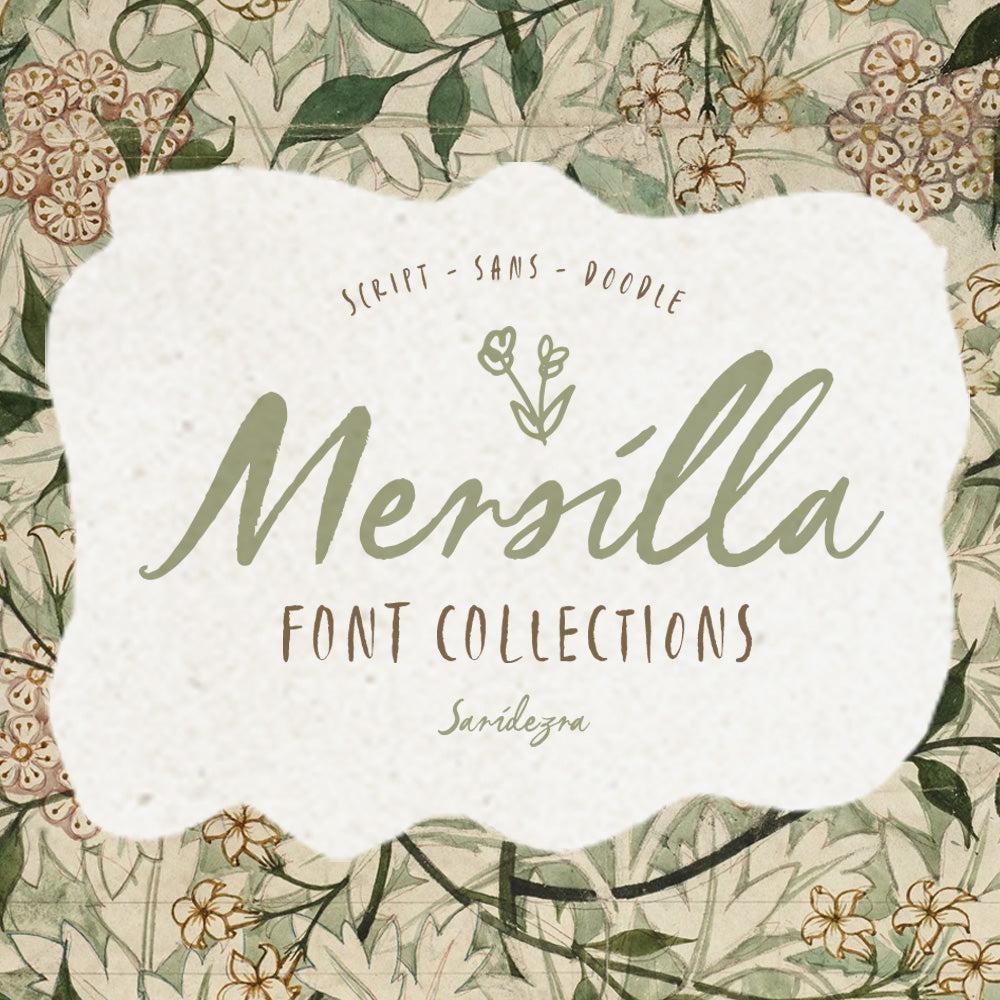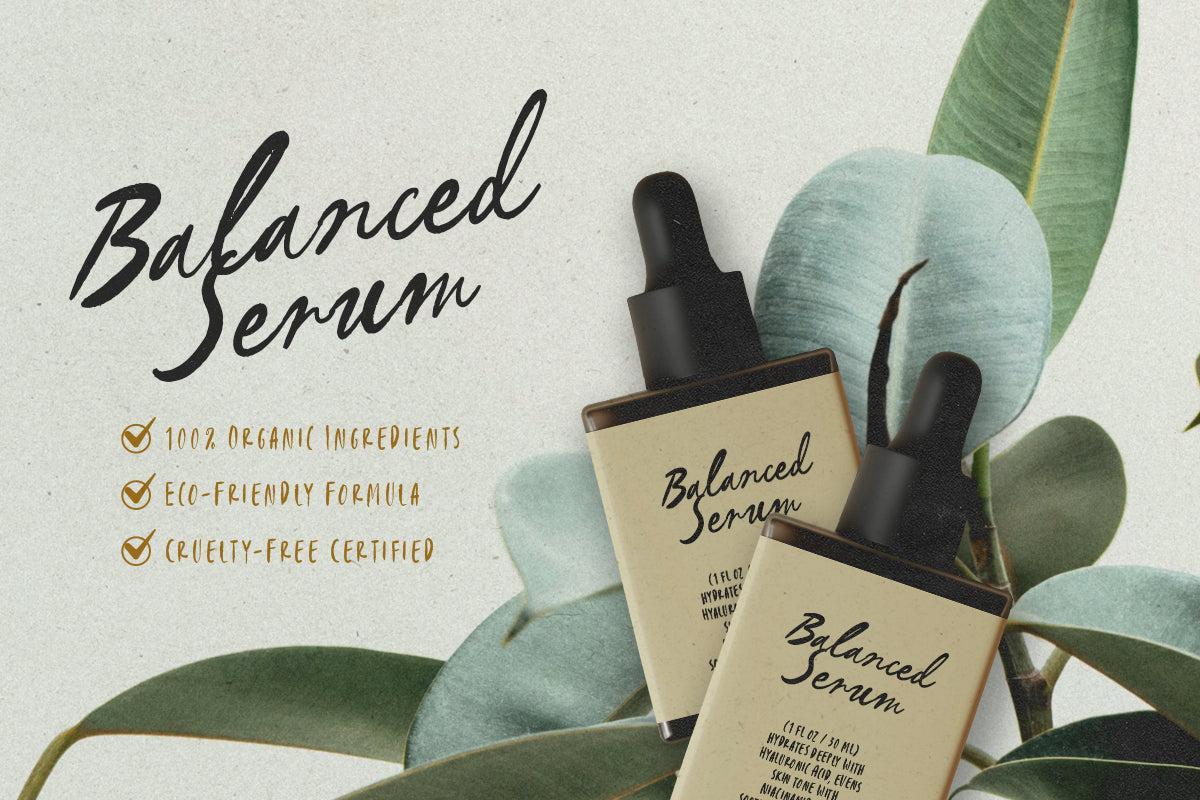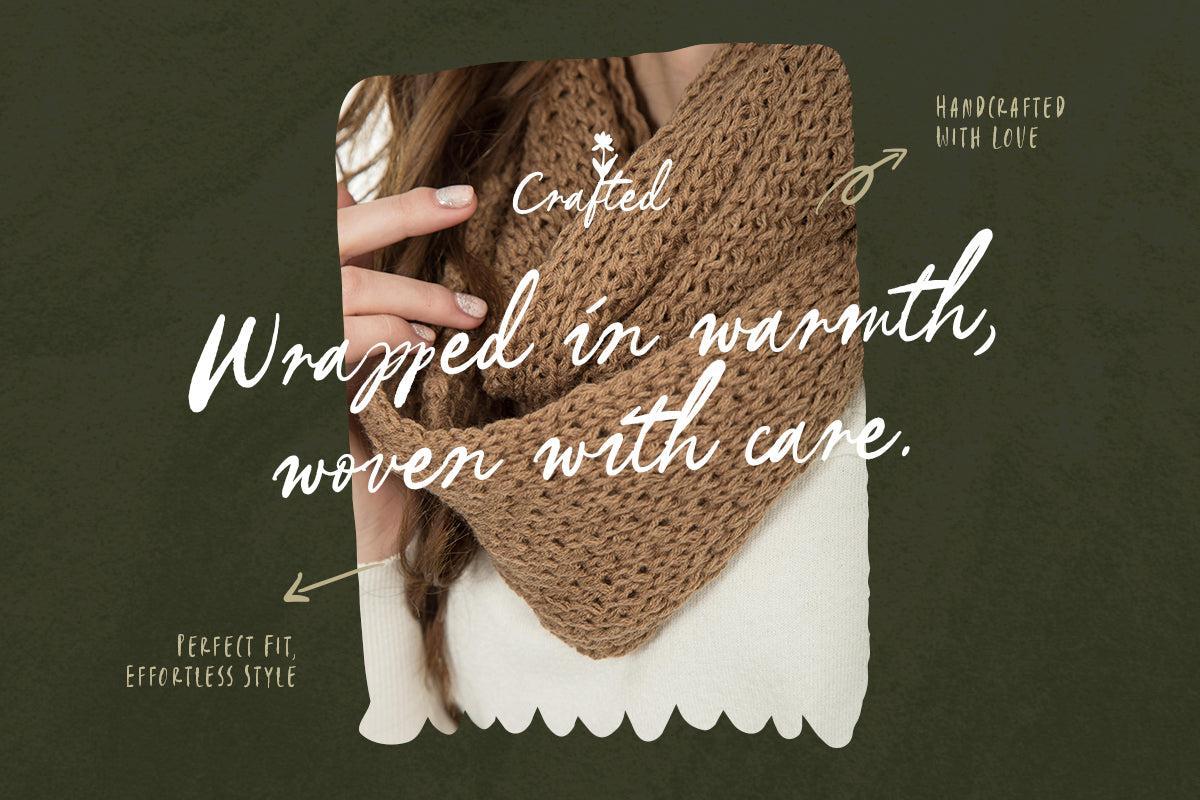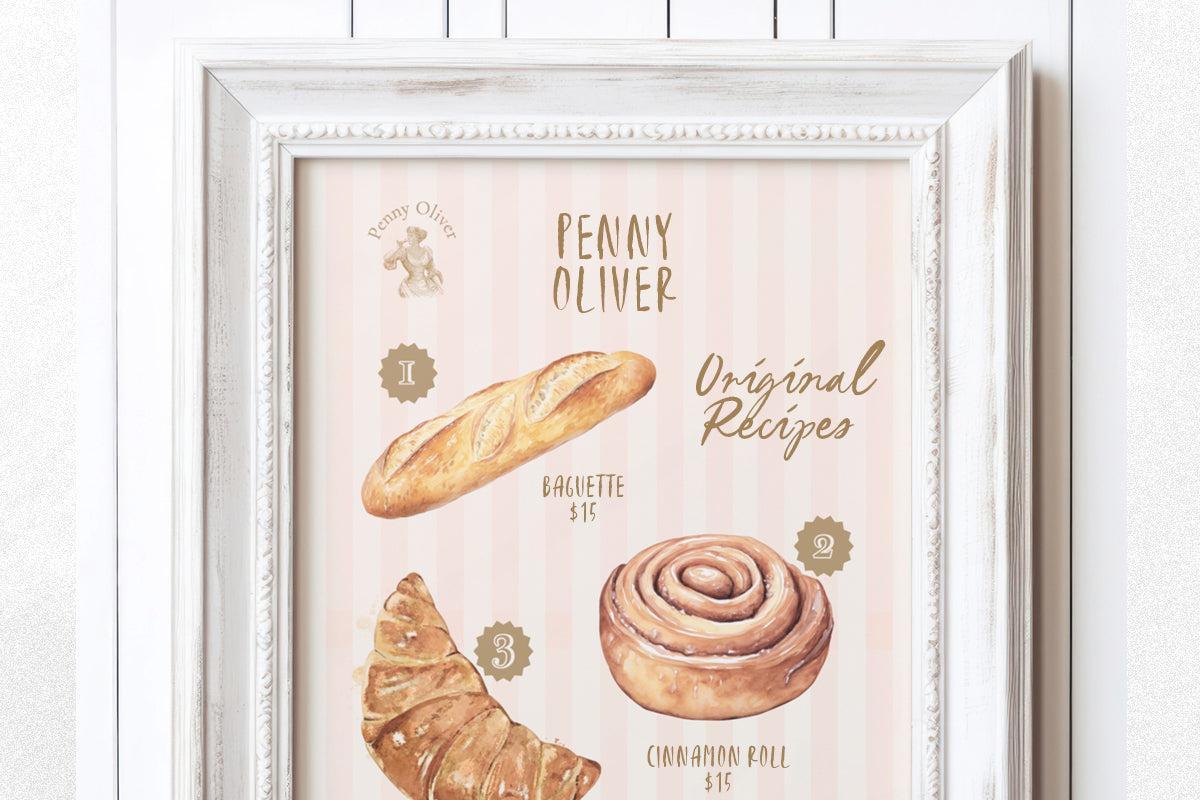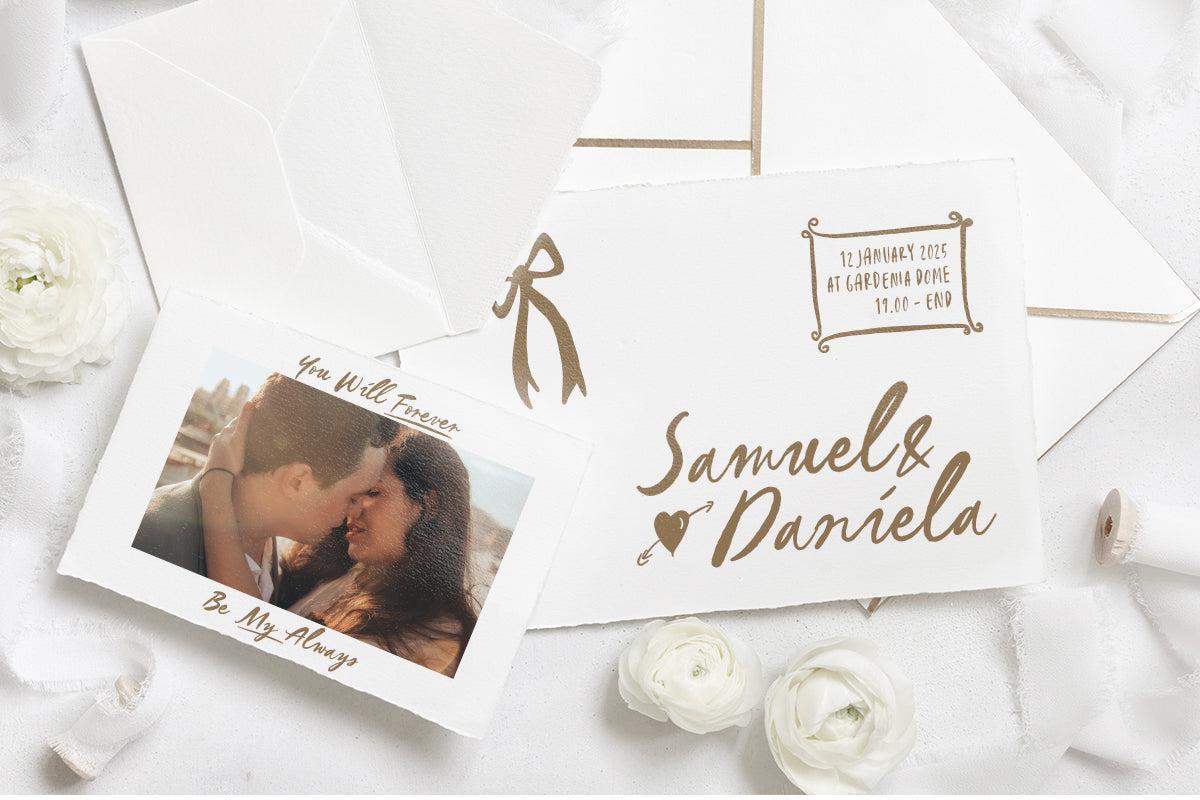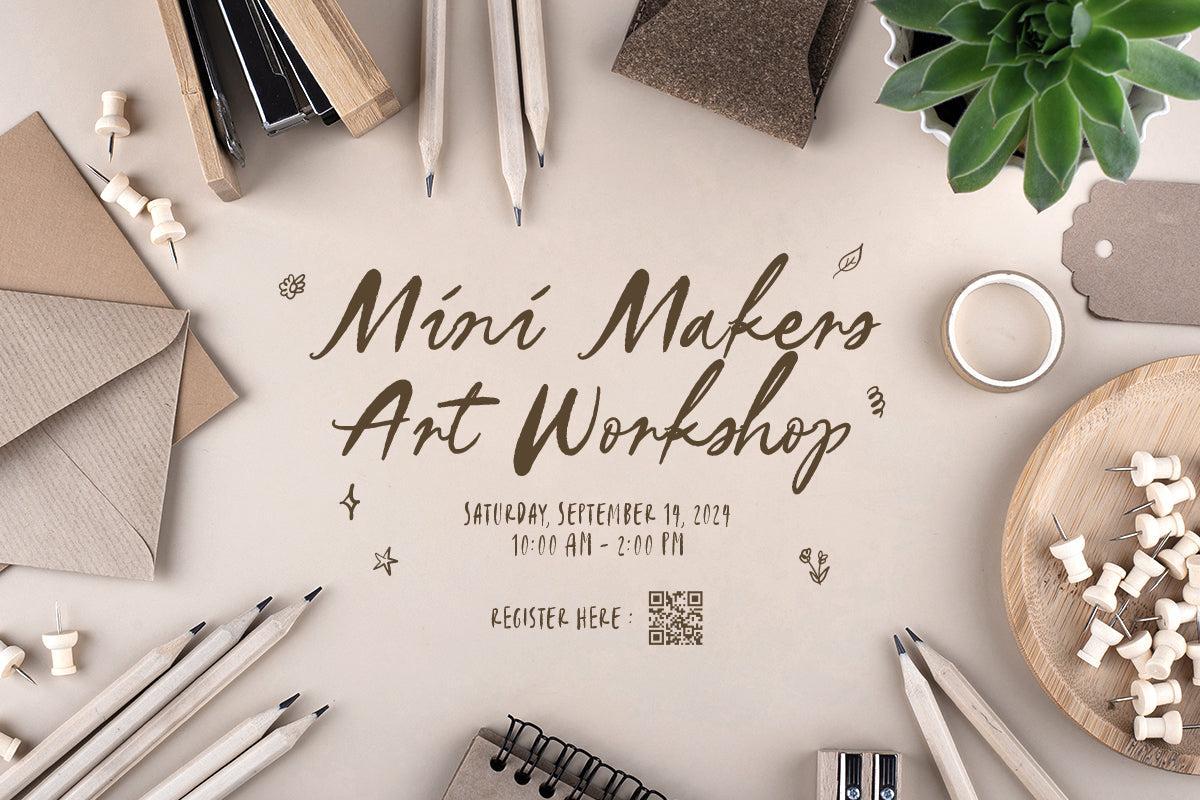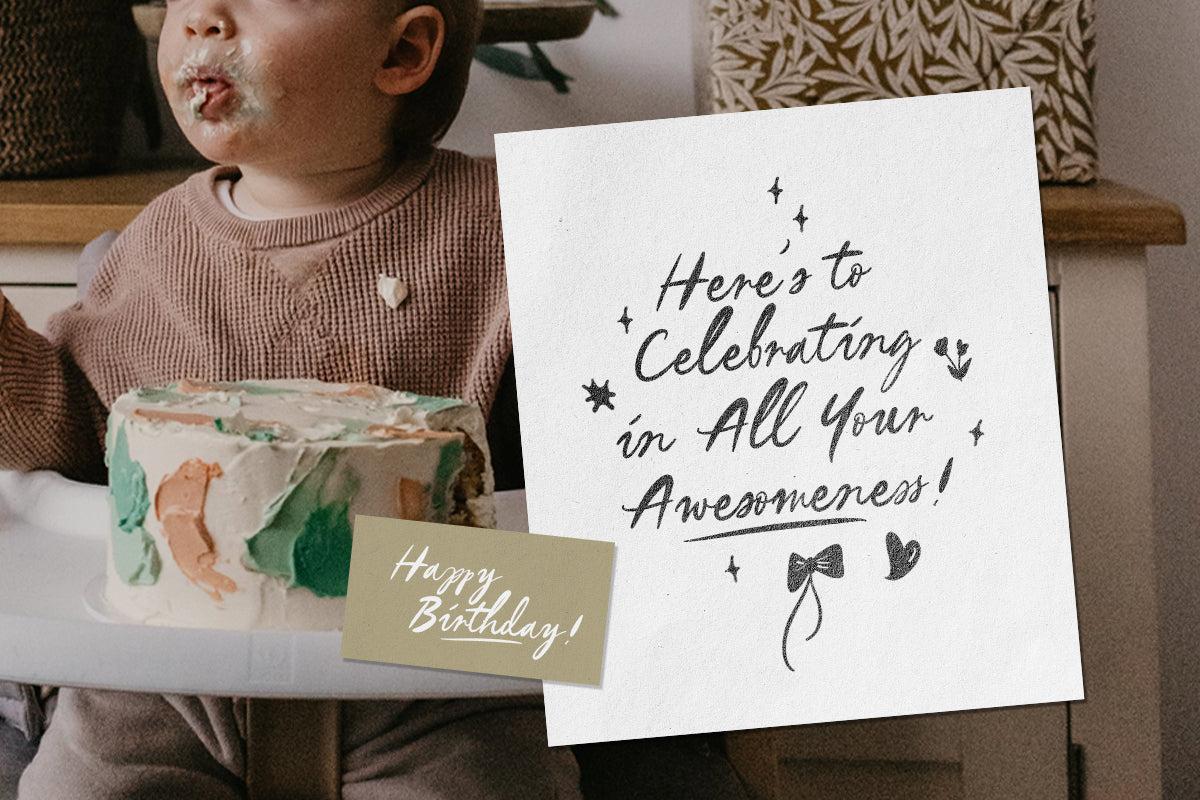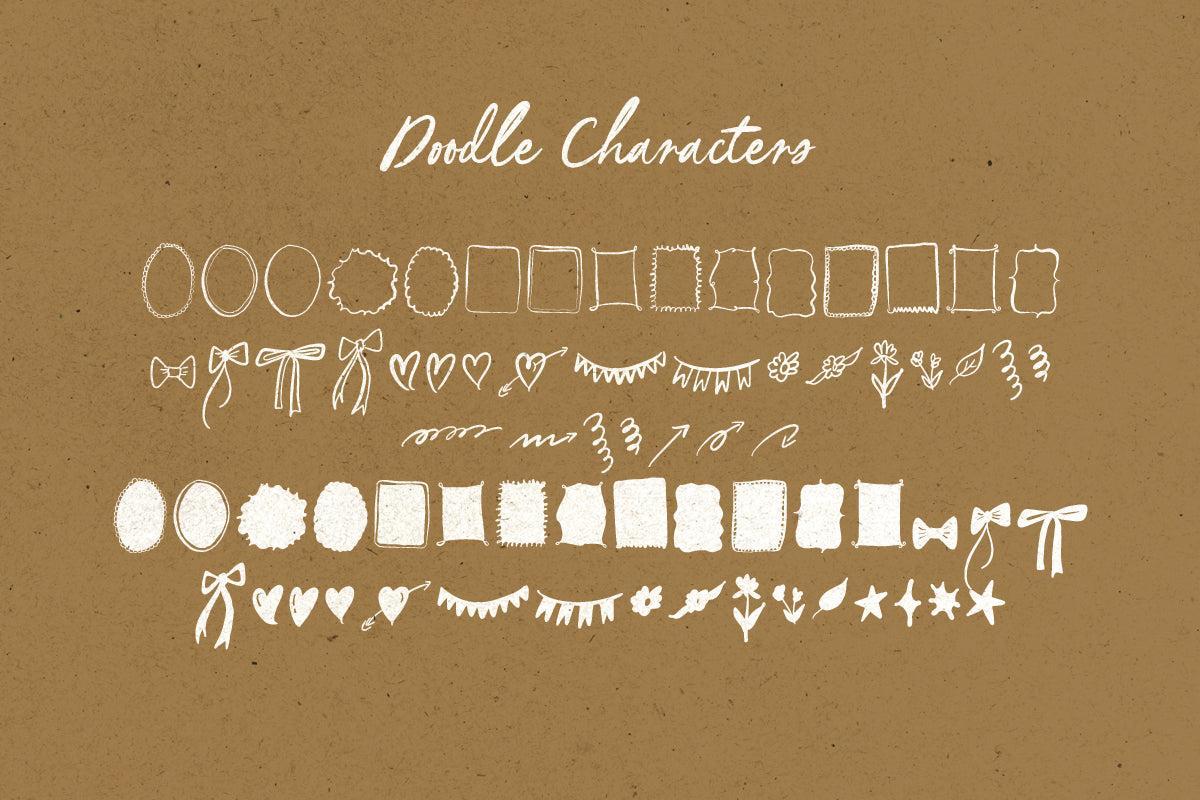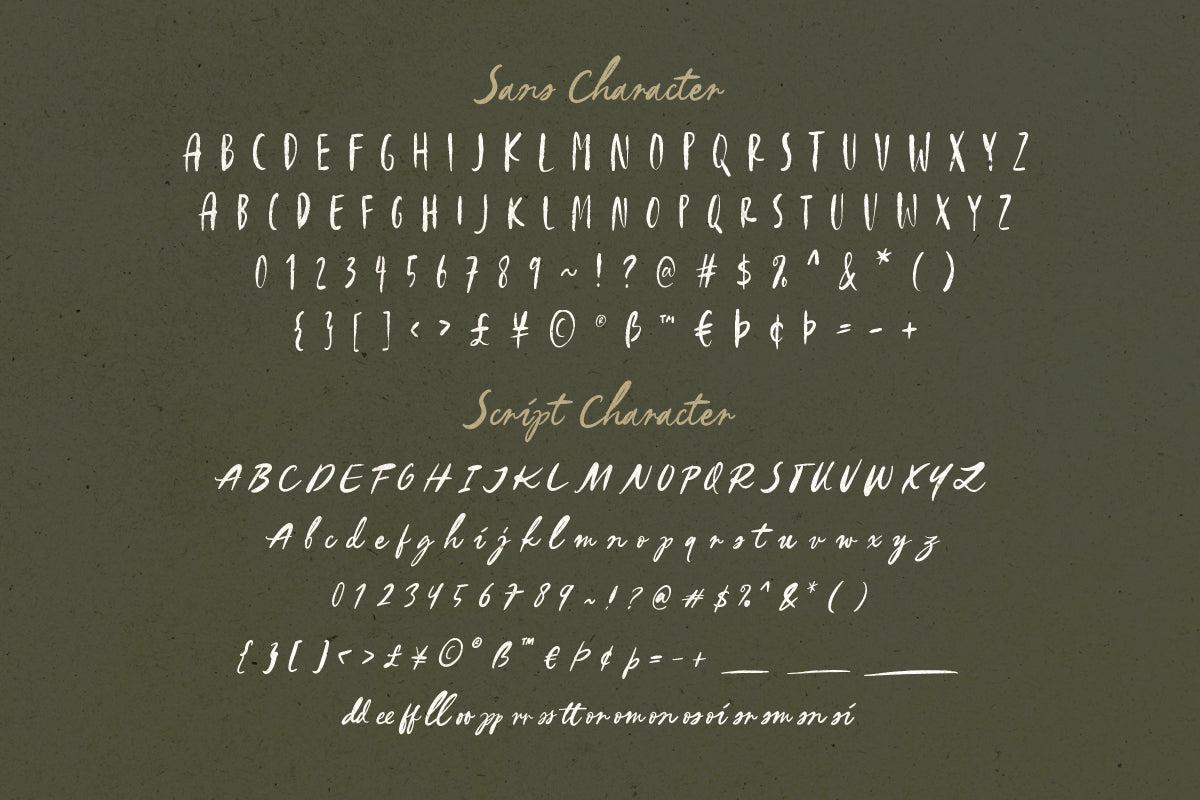
Mersilla - Font Collections + Doodle
Mersilla is a handmade font collection that includes three fonts: a script font, a sans font, and a doodle font featuring hand-drawn objects such as stars, bows, flowers, and frames. This collection supports multilingual characters, numbers, and symbols, making it versatile for various design needs.